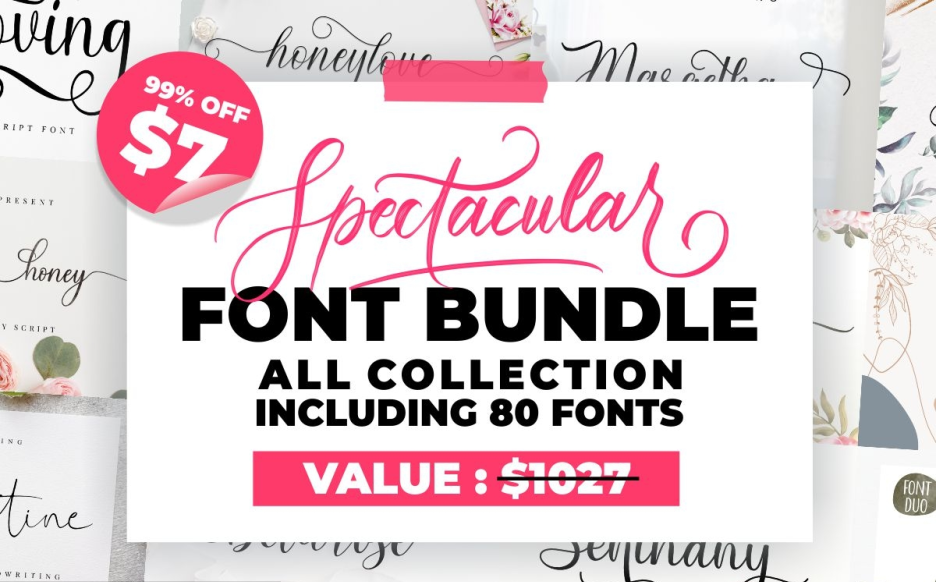
Spectacular Font Bundle
Introducing the Spectacular Font Bundle, a carefully curated collection of diverse and stylish fonts designed to elevate your creative projects. This bundle features a variety of font styles, including serif, sans-serif, script, and display types, each crafted with precision to ensure versatility and readability.
• Multiple font styles: serif, sans-serif, script, and display
• Various weights and styles for flexibility
• High-quality design for professional use
• Ideal for branding, logos, invitations, and more
Utilize these fonts to create stunning visuals for your projects. Whether you are designing a website, crafting marketing materials, or developing a brand identity, the Spectacular Font Bundle provides the perfect typographic solutions.